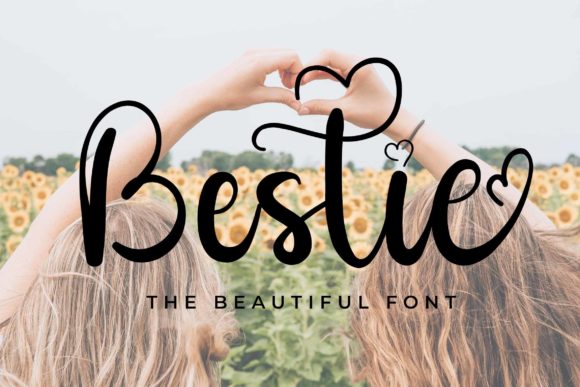
Looking for the best font to use for Christmas? Look no further than Bestie Font! This sweet, romantic, and beautiful script font is the perfect choice for your holiday projects.
Created by Handles Creative, Bestie Font is designed to captivate your audience and bring a touch of elegance to your designs. The font family is script, with beautiful curves in every letter, making it perfect for everything from invitations to social media graphics.
One of the best things about Bestie Font is that it's PUA coded, which means you can access all of the glyphs and sweeps with ease! This allows you to get creative with your designs and add your own unique touch to every project.
Whether you're creating Christmas cards, gift tags, or social media posts, Bestie Font will help you create stunning designs that are sure to impress. Its romantic and sweet style will add a touch of warmth and love to any project, making it the perfect choice for those looking to capture the holiday spirit.